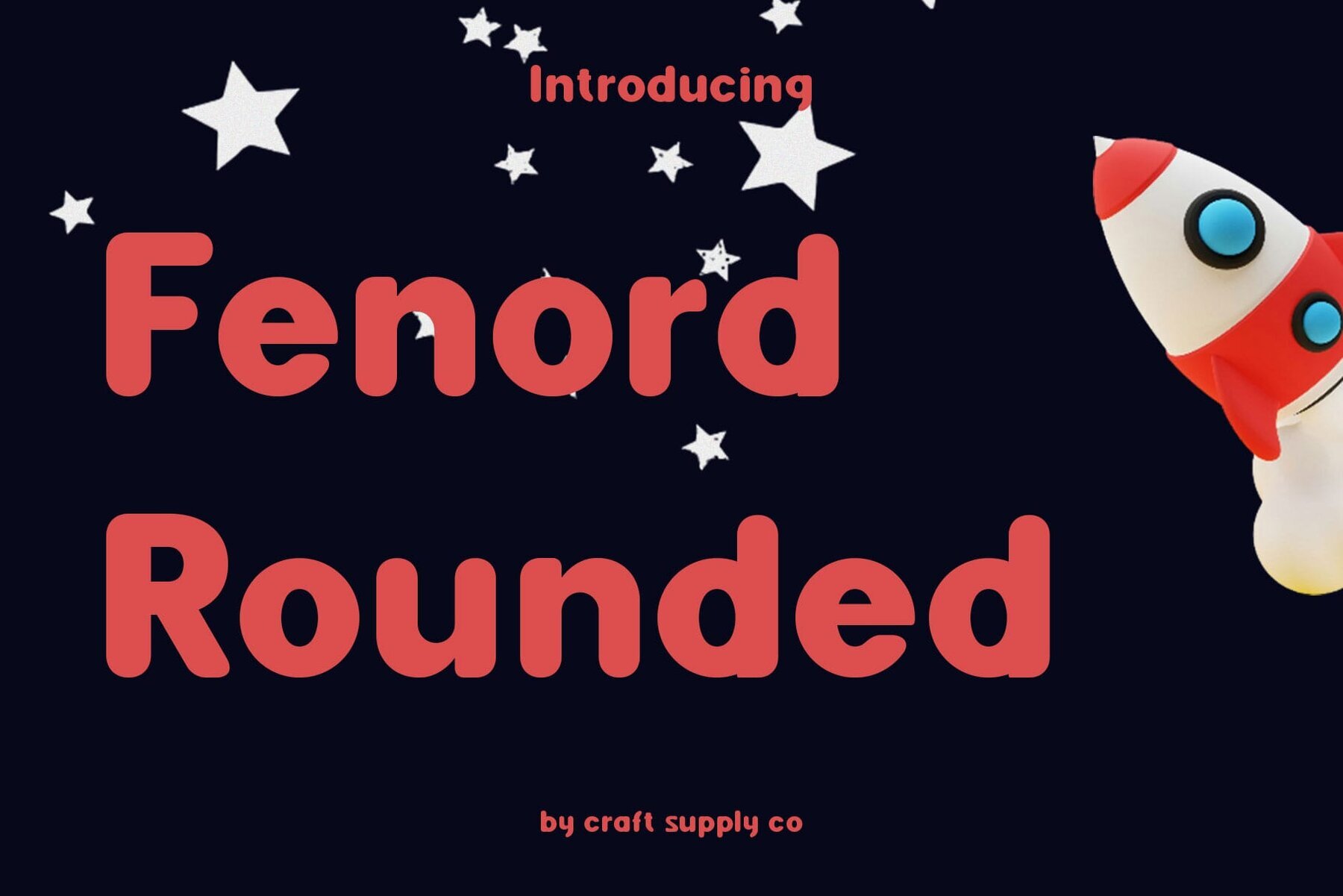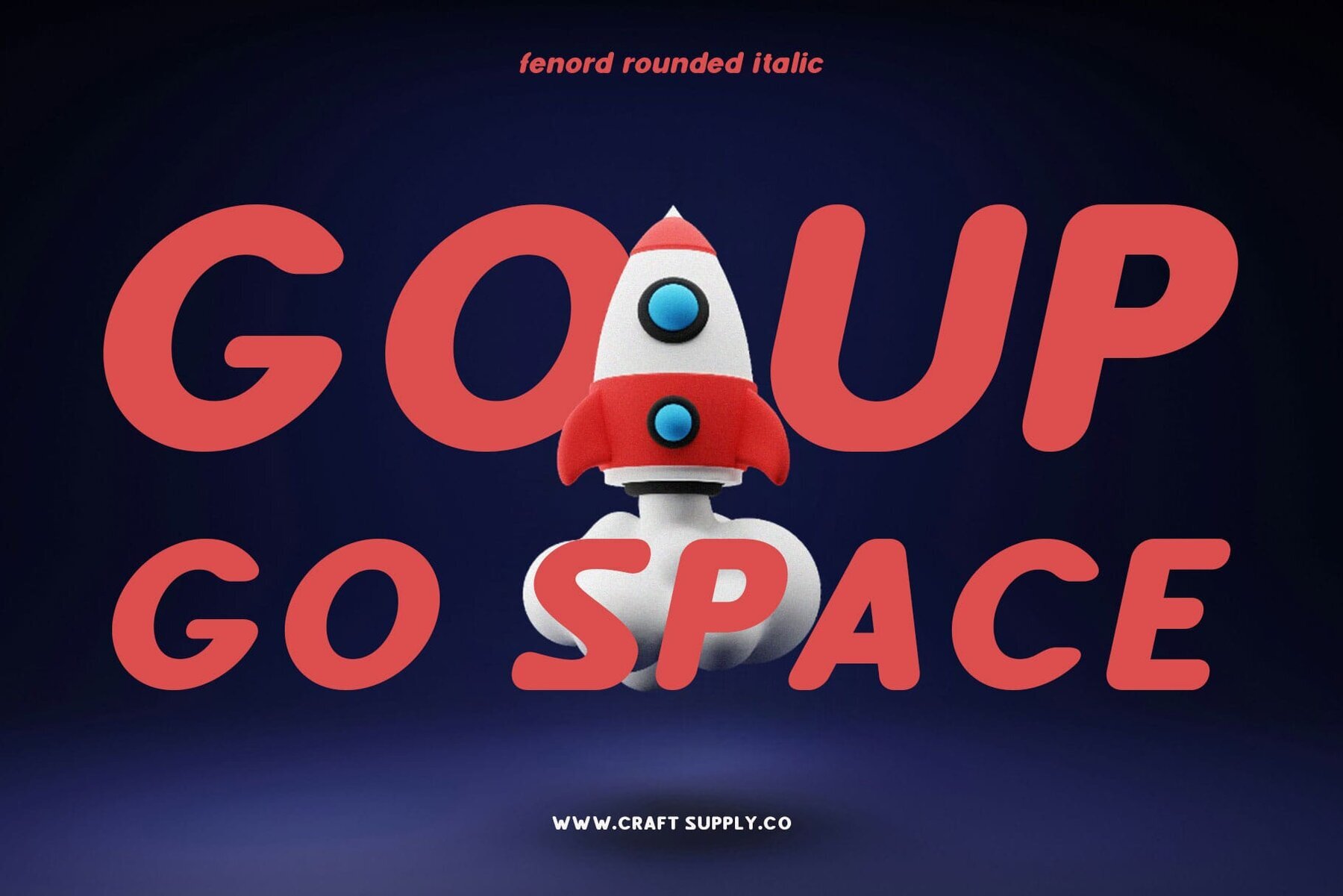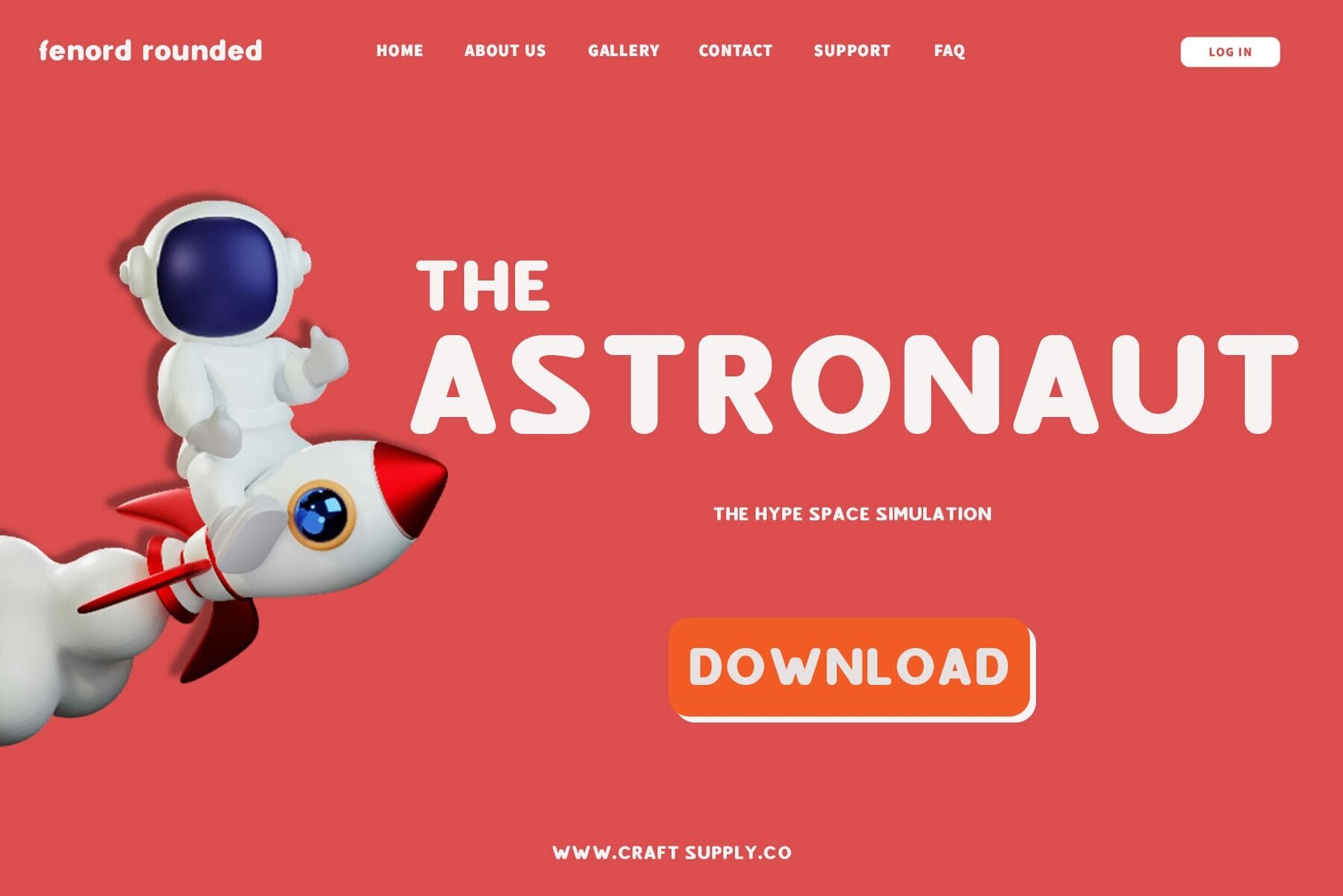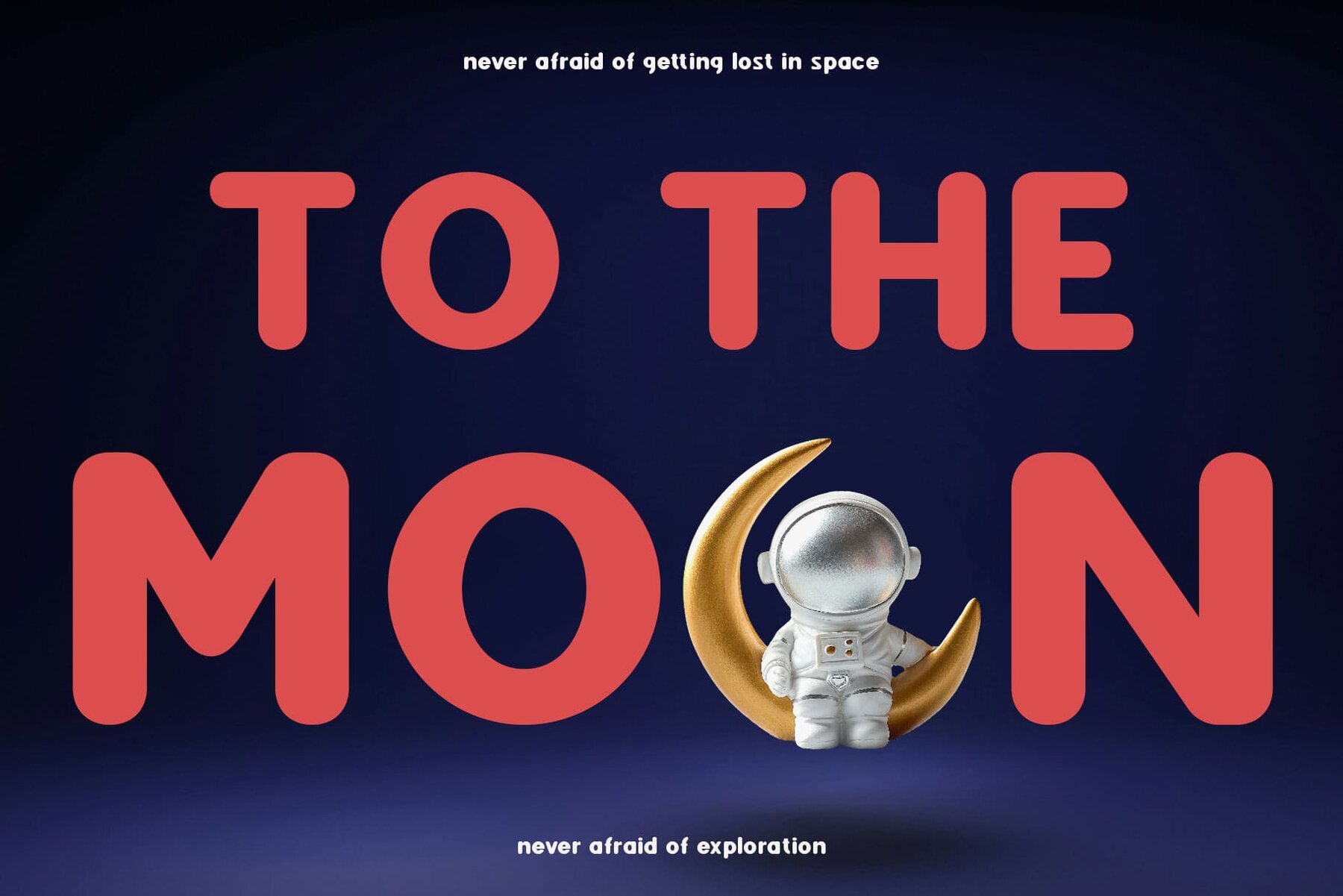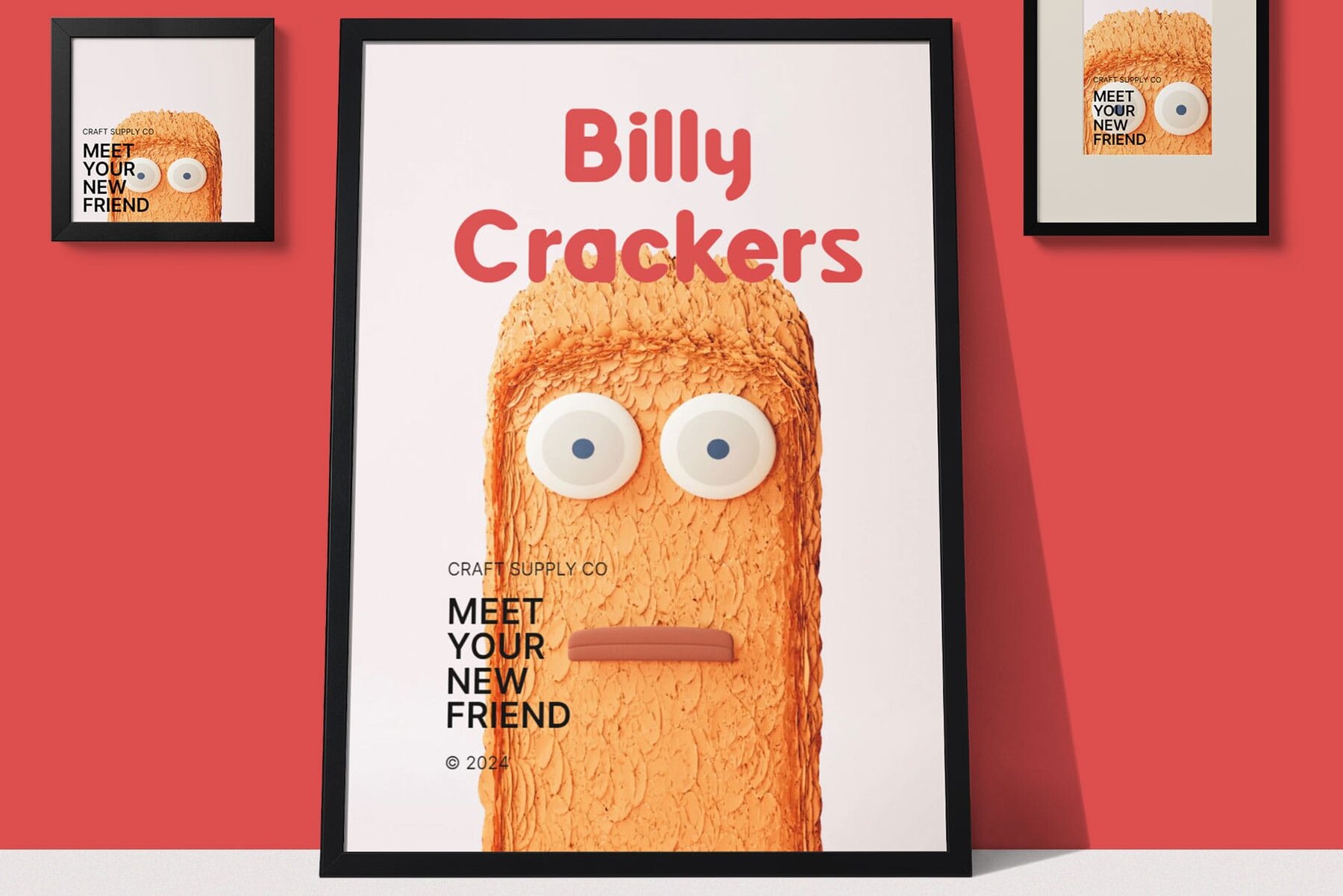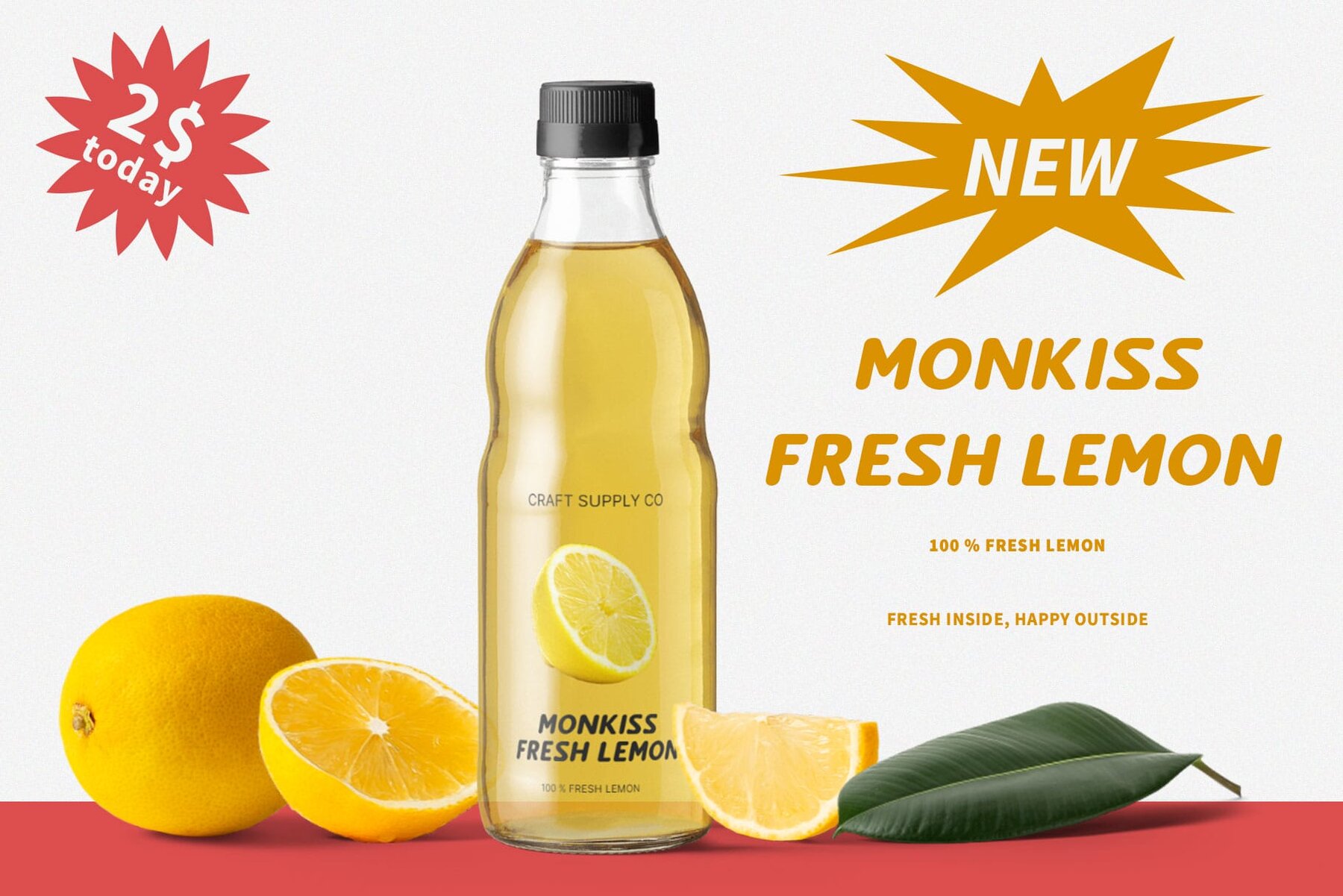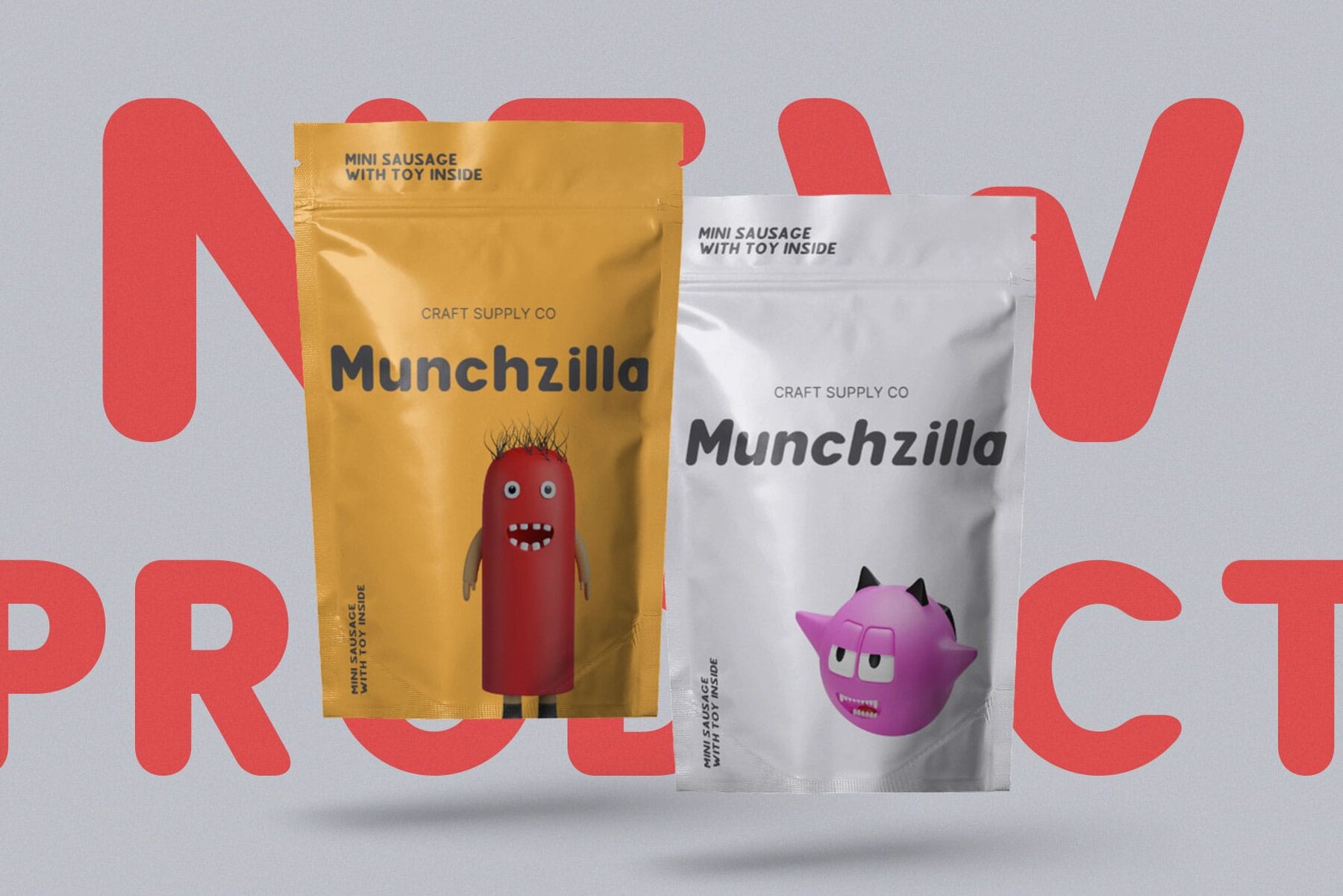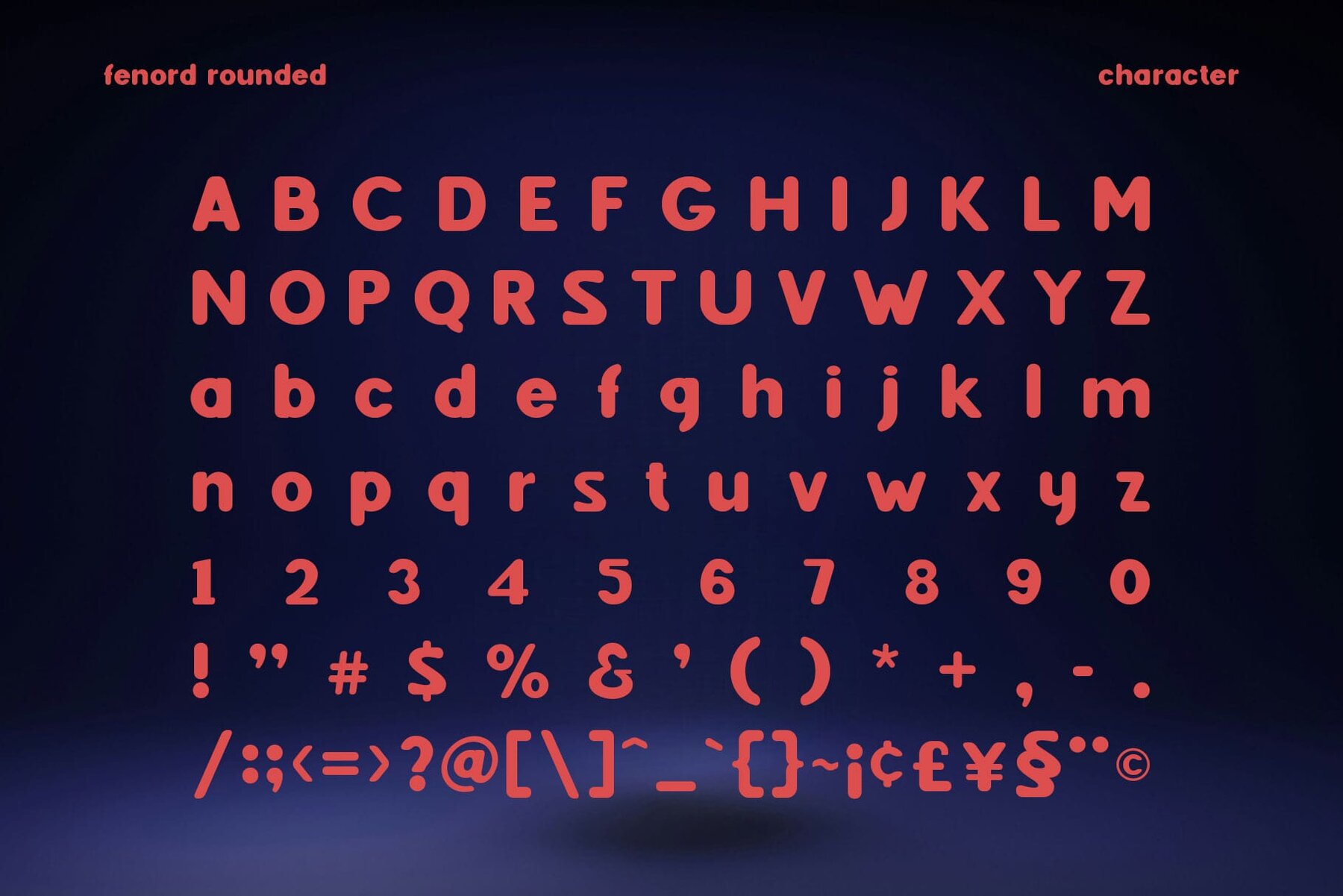
Fenord Rounded Font
This contemporary sans-serif font features boldly rounded characters and a geometric simplicity that makes it highly legible and dynamic. Its clean, friendly design lends a playful yet elegant energy to any graphic, making it well-suited for modern branding and casual display contexts.